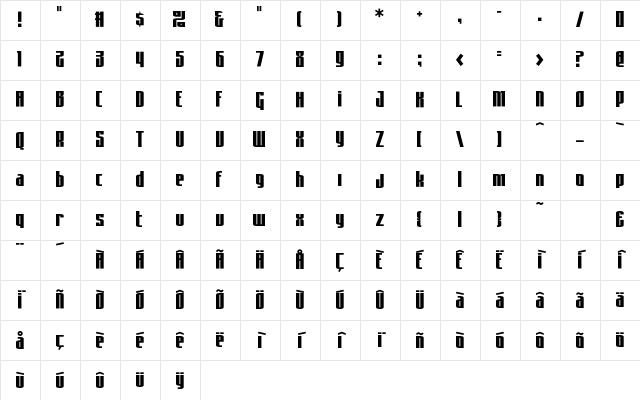
AsimovSans Regular
Design Context for AsimovSans
AsimovSans is a composed and adaptable typeface that performs quietly and consistently across a wide range of design contexts.